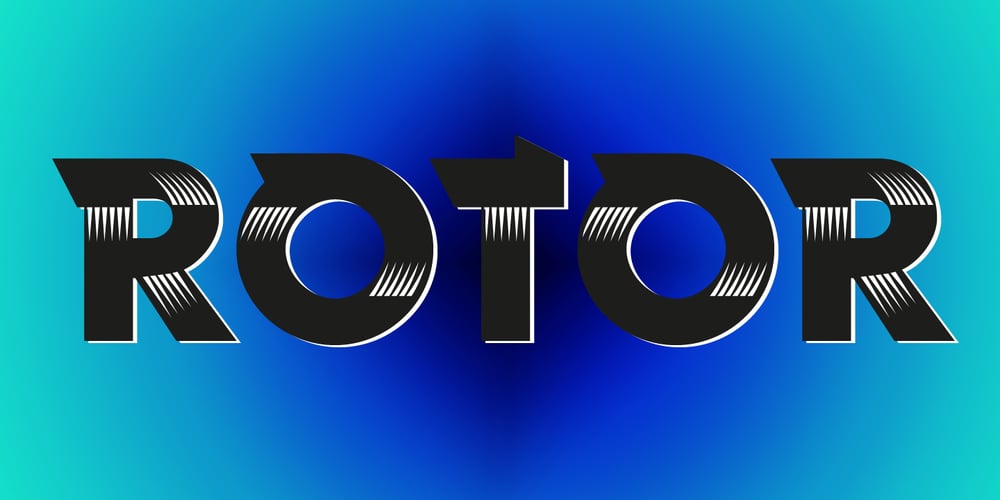
Rotor
Rotor font
Rotor Font Family was designed by Gert Wiescher and published by Wiescher Design. Rotor contains 16 styles and family package options. Rotor is a speedy font. In 1929 K. Sommer designed a typeface for Linotype called “Vulcan”. Some years later they republished the typeface and called it Dynamo. The early Vulcan design inspired me to do this new, faster typeface in two different “speeds”, meaning I gave the design two opposing slants on the slab-serifs. In order to make it more useful I drew two sets of each “speed”, one with the white speedtraces and one without. And of course I did give it an allover new look, but still kept it a very art deco kind of typeface. Your speedy designer Gert Wiescher